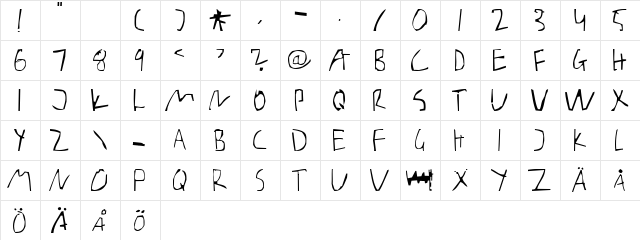
Barely Manilow Regular
Design Context for Barely Manilow Typeface
Barely Manilow is a composed and adaptable typeface that performs quietly and consistently across a wide range of design contexts.